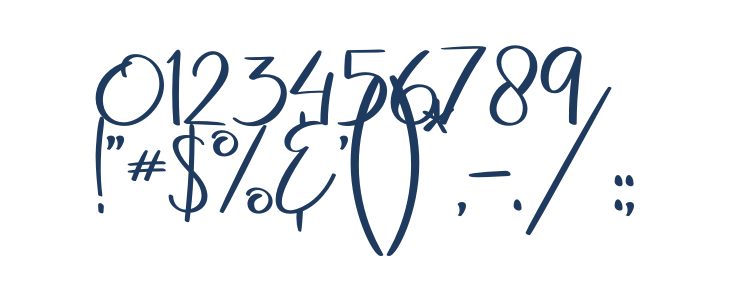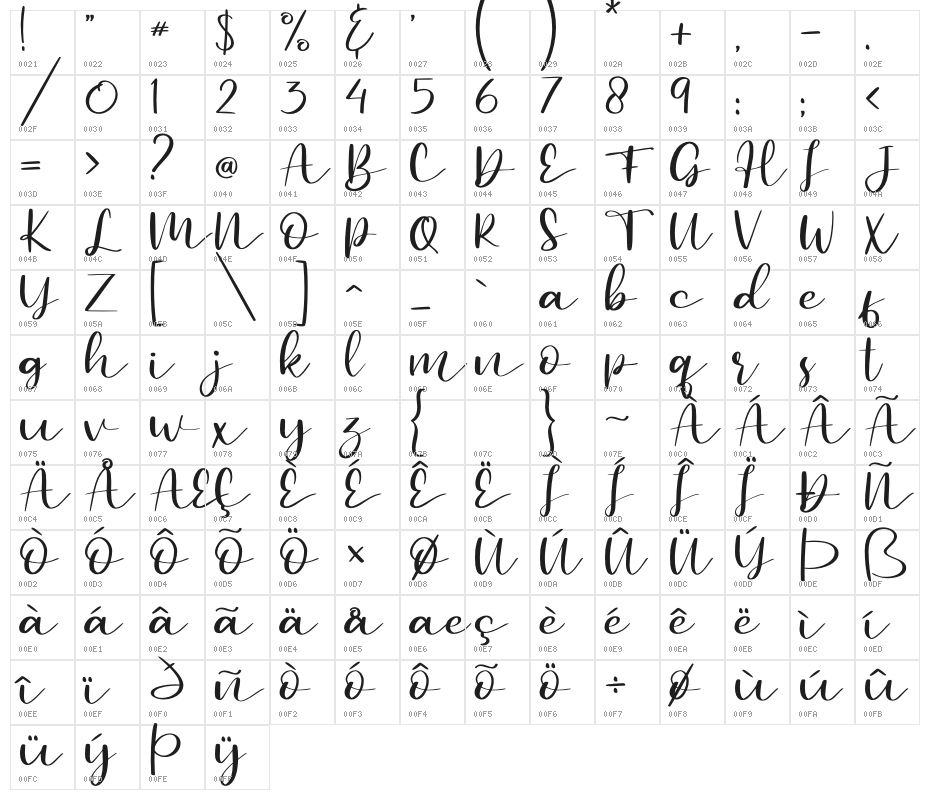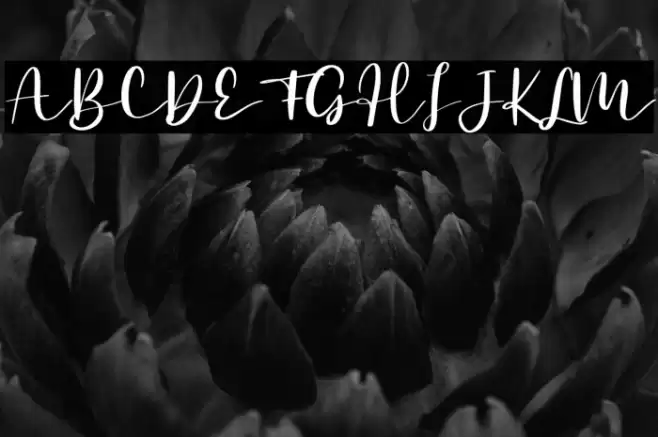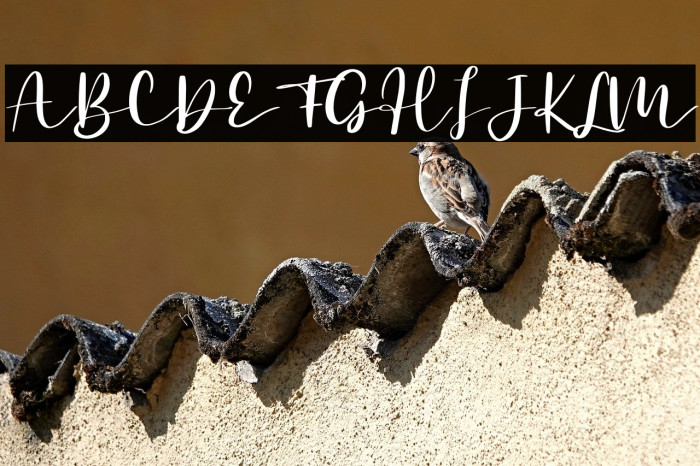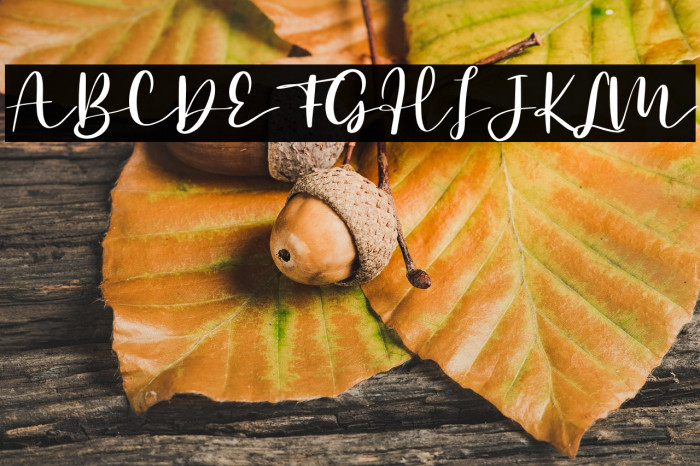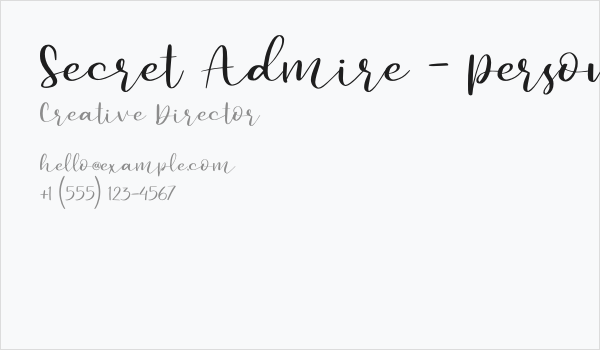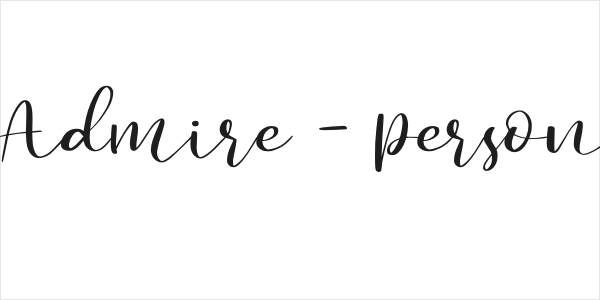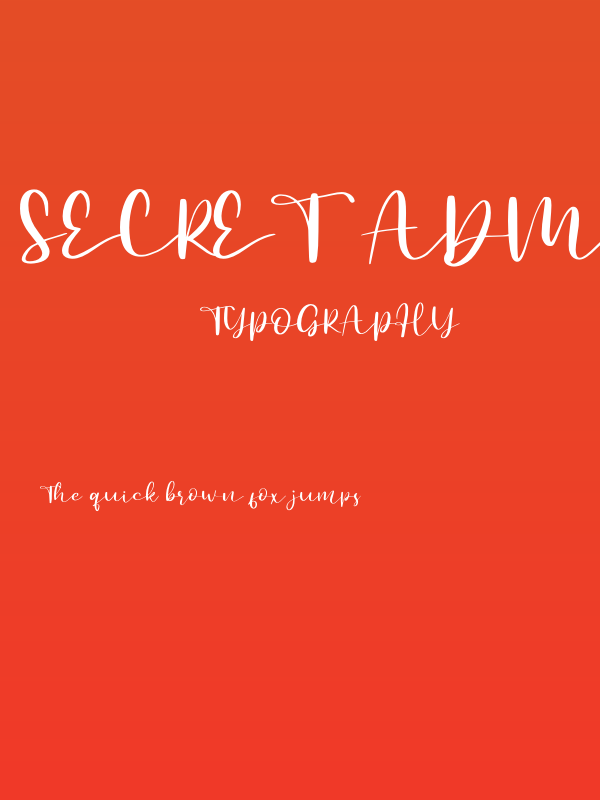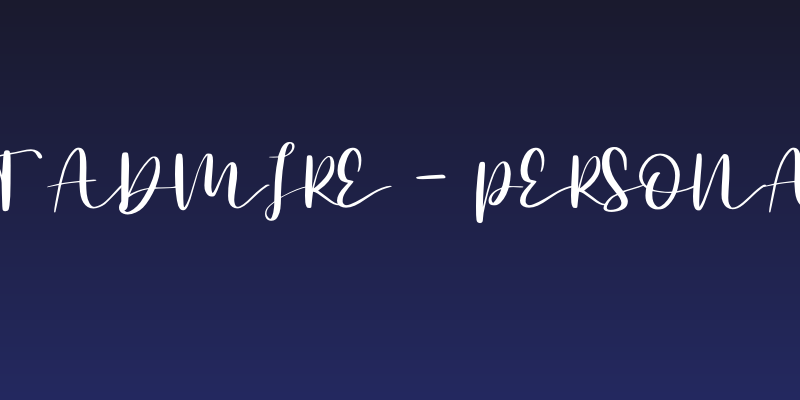
Secret Admire - Personal Use Font
Secret Admire - Personal Use Description
This font features a flowing, cursive style with a modern twist, characterized by its elegant and smooth letterforms. The uppercase letters have a distinct flair, with some letters featuring unique loops and swashes that add a touch of sophistication. The lowercase letters maintain a consistent style, with rounded edges and a slight slant that enhances readability. Numbers and special characters are designed to complement the overall aesthetic, maintaining the same fluidity and elegance. This font is perfect for projects that require a personal and stylish touch, such as invitations, branding, and social media graphics.
| Use Case | Logos, Invitations, Social Media Graphics |
| Proposed Projects | Ideal for wedding invitations, branding, social media graphics, and personal stationery. |